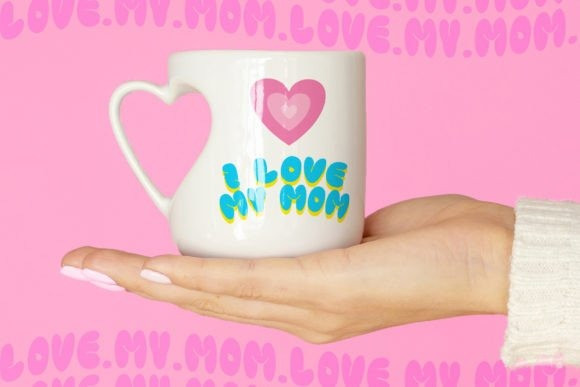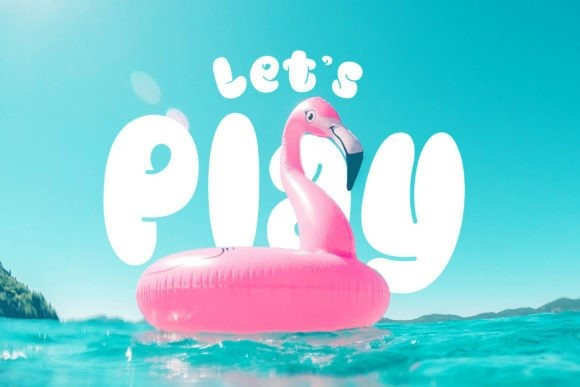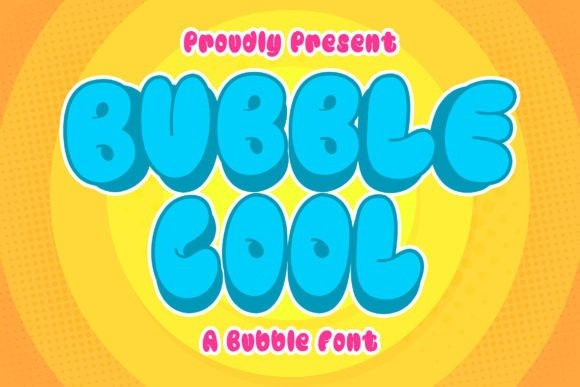
Bubble Cool Font
Bubble Cool Font is a modern, bold, clean and decoration retro font style. Equipped with all complete characters ranging from uppercase letters, lowercase letters, numbers, this font is ready to be used in any project. Very suitable for logotype, Stickers, Packaging design, Cricut Project, headlines, brand identity, t shirt or apparel industry, posters, magazines, books, YouTube, Instagram, websites, or any of your creative design projects. Use this BUBBLE COOL font to add that special modern bubbly touch to any design idea you can think of.